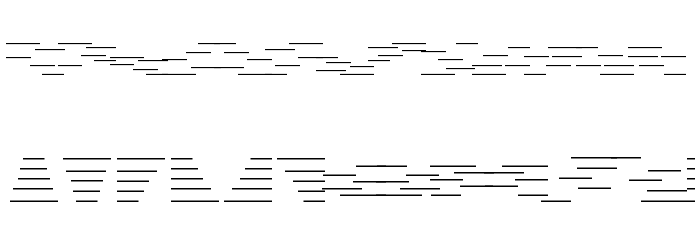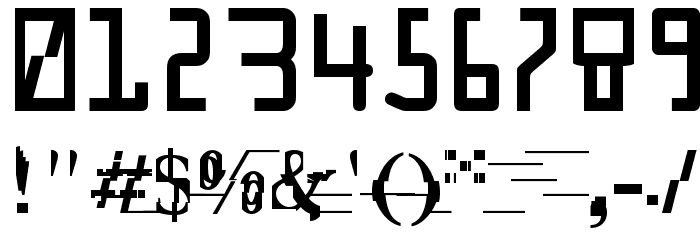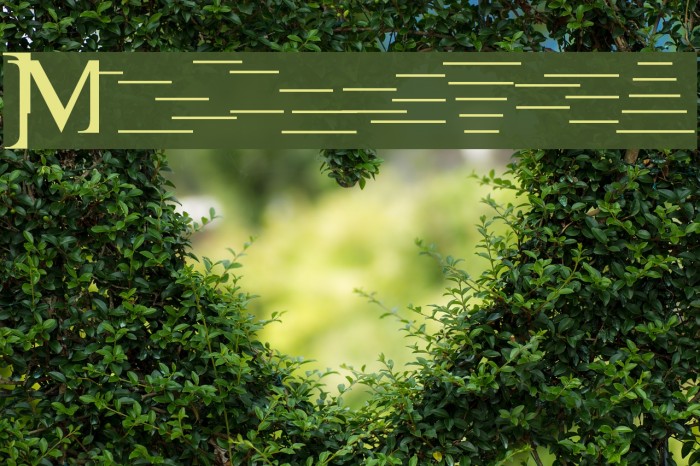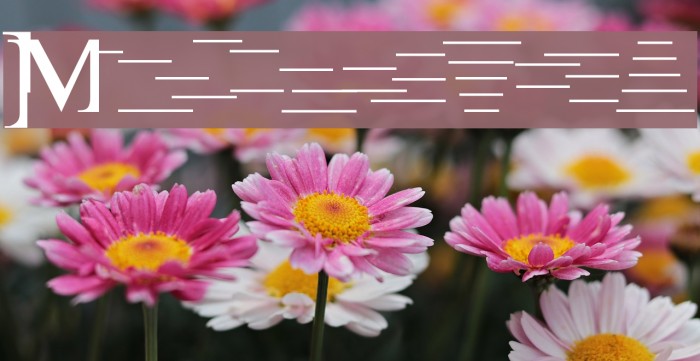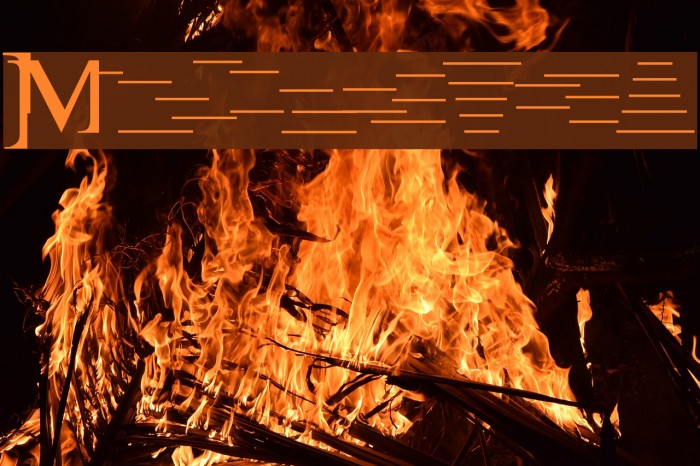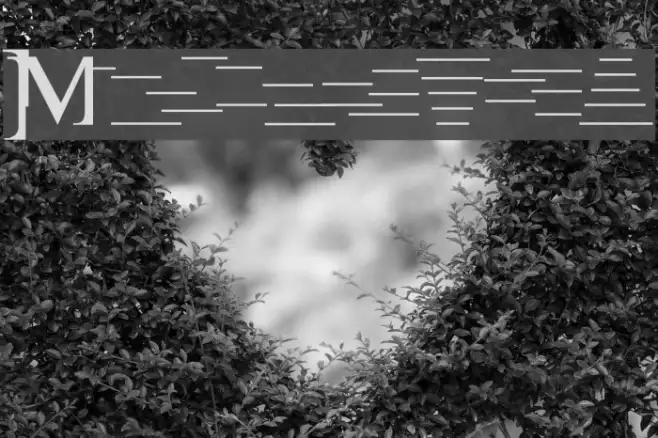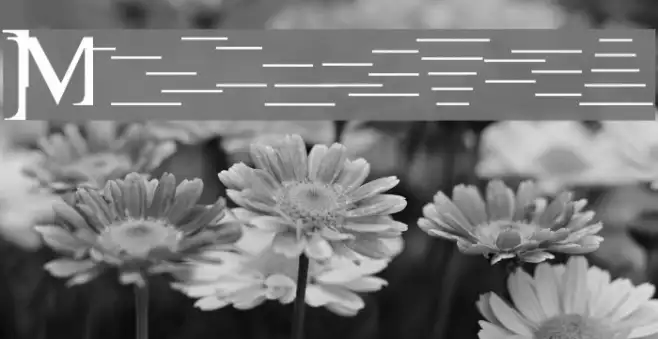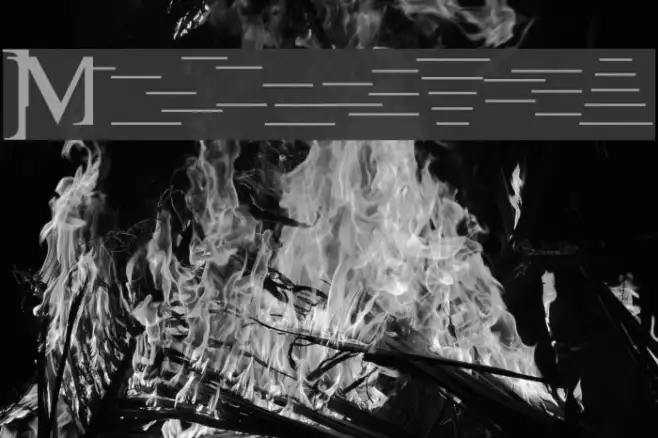
Miltown Font
This font features a unique and edgy design with a glitch effect that disrupts the flow of the characters. The uppercase letters are bold and have a distorted appearance, as if they are being interrupted by digital interference. The lowercase letters continue this theme, maintaining a consistent style throughout. The numerals are bold and clear, providing a strong contrast to the more chaotic letterforms. Special characters are included, each with its own glitchy twist, adding to the overall digital aesthetic. This font is perfect for projects that require a modern, tech-inspired look with a touch of chaos.
A glitch-inspired font with bold, distorted characters and a digital aesthetic.
- Proposed Projects: Ideal for digital art, tech-themed posters, video game graphics, and edgy branding projects.
- Overall Style: Modern, Digital, Edgy
- Use Case: Headlines, Logos, Digital Art